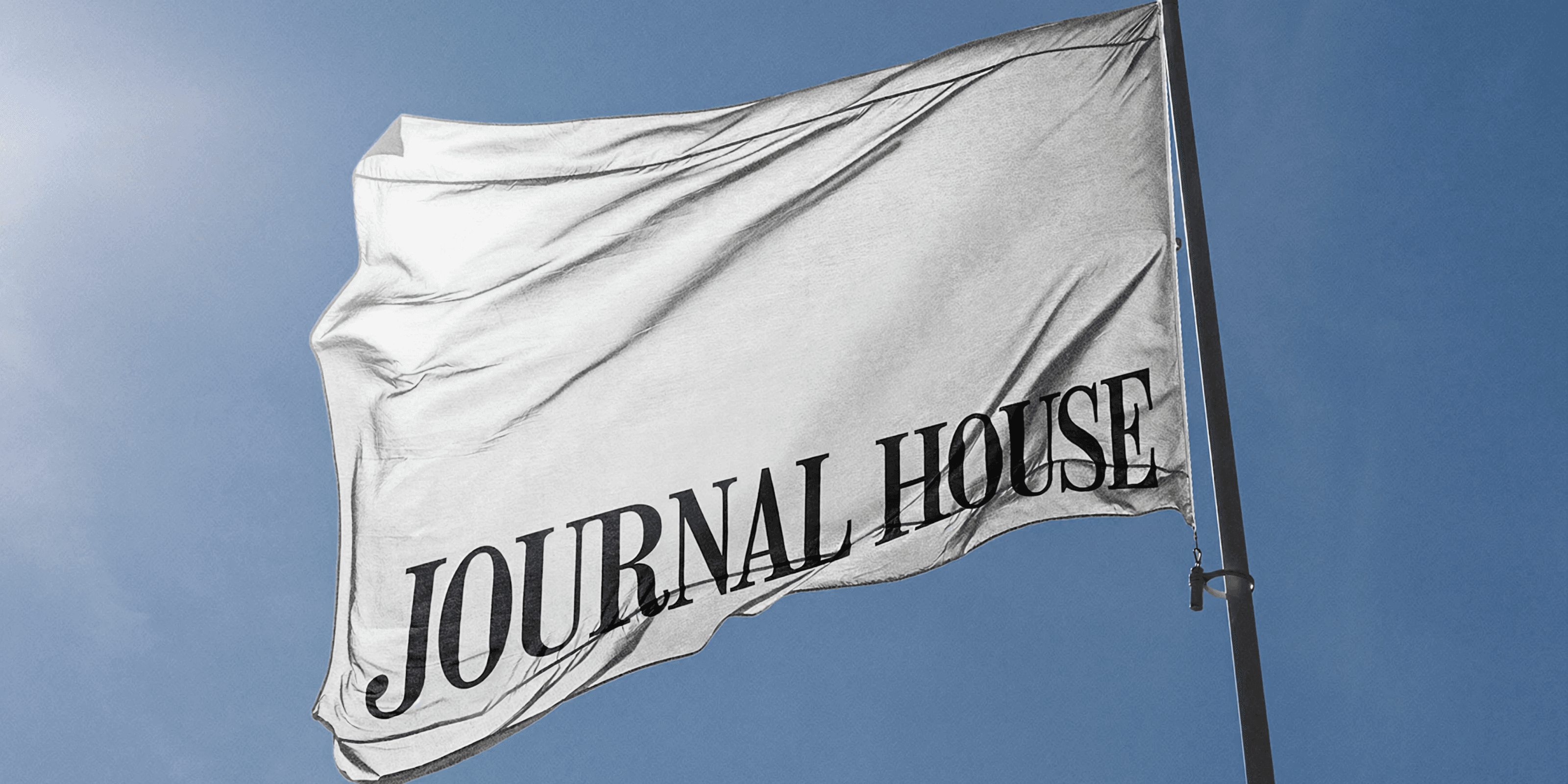
Journal House
Journal House is The Wall Street Journal’s home away from home during the world’s most notable gatherings.
MCKL collaborated with Order to create a typographic identity system that extends the equity of The Wall Street Journal’s iconic brand language beyond the publication and into the event experience.
Using letterforms from the historic WSJ logo, we crafted the Journal House logo and developed a complementary typeface, preserving its classic elegance while adapting it for a distinctive and cohesive visual identity.